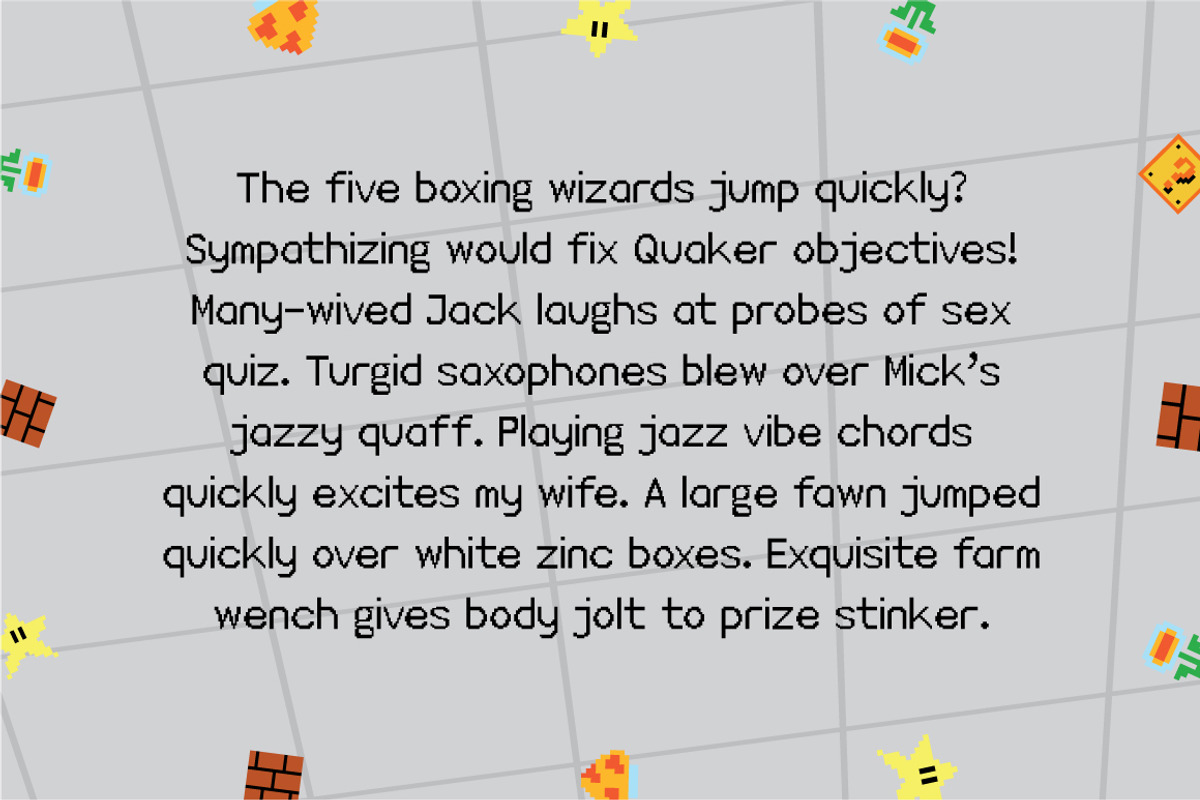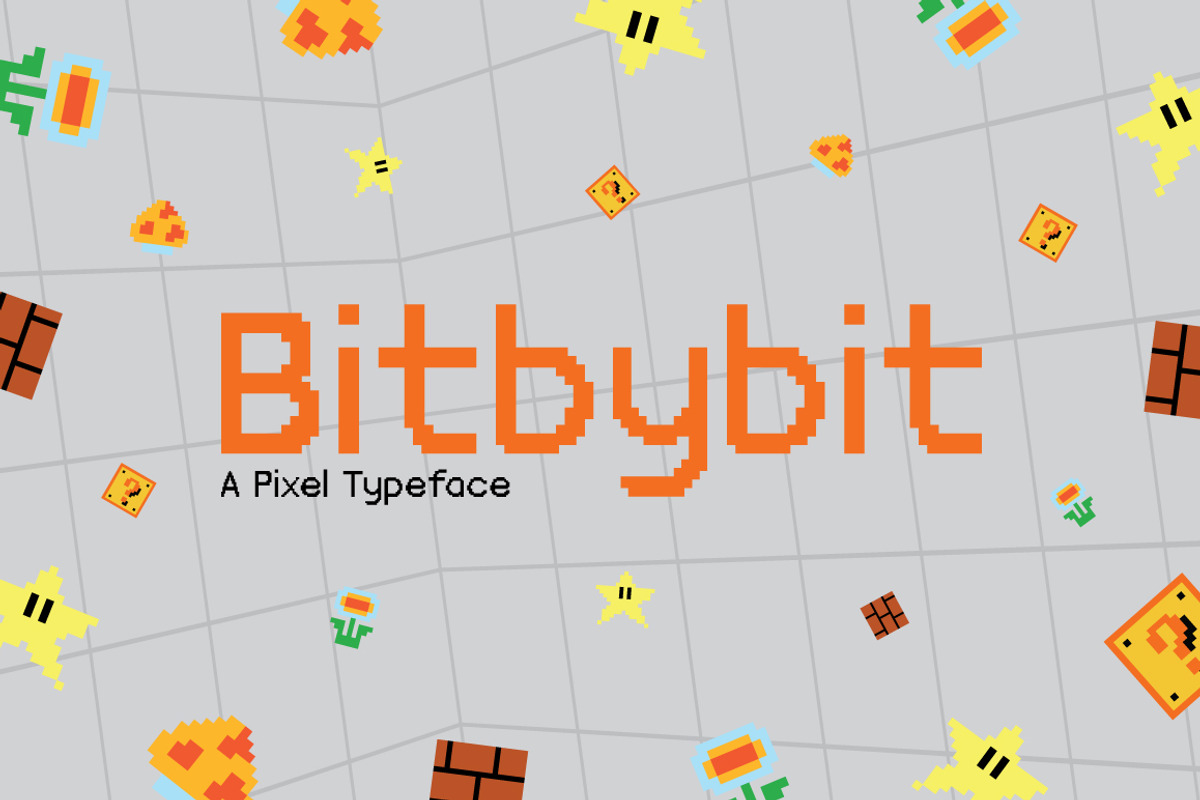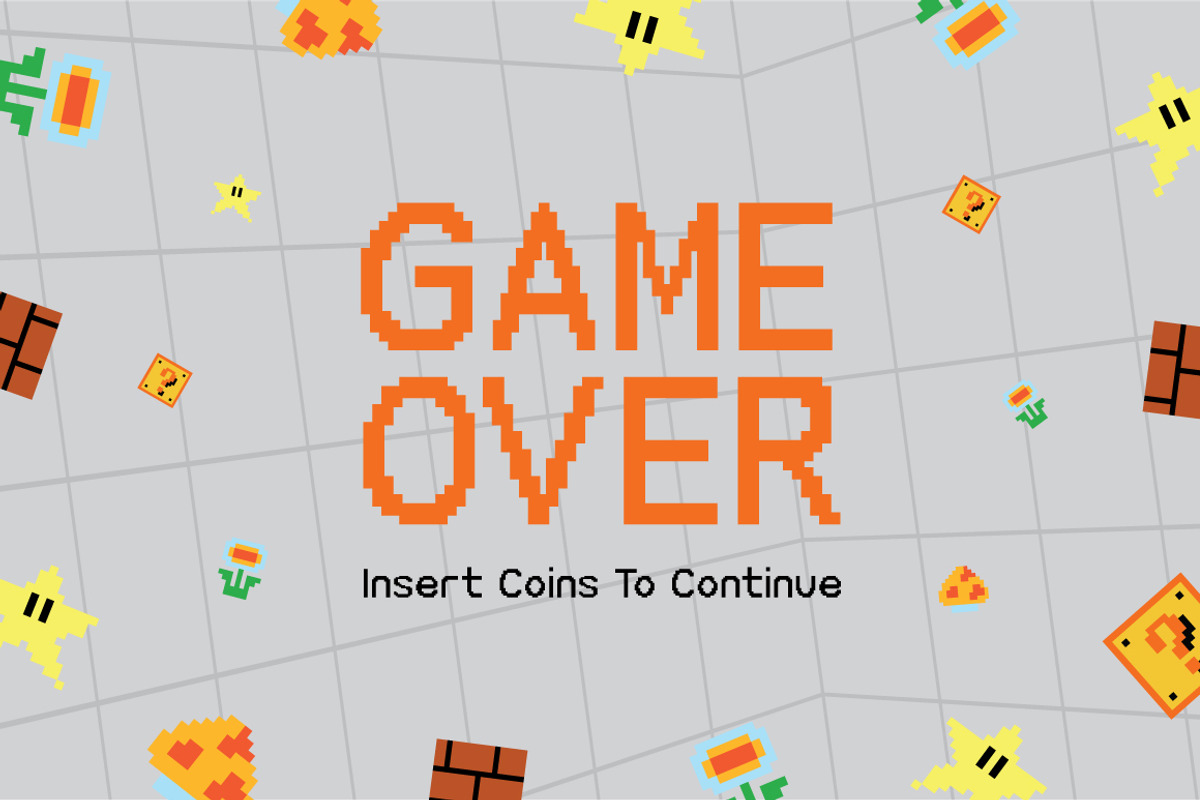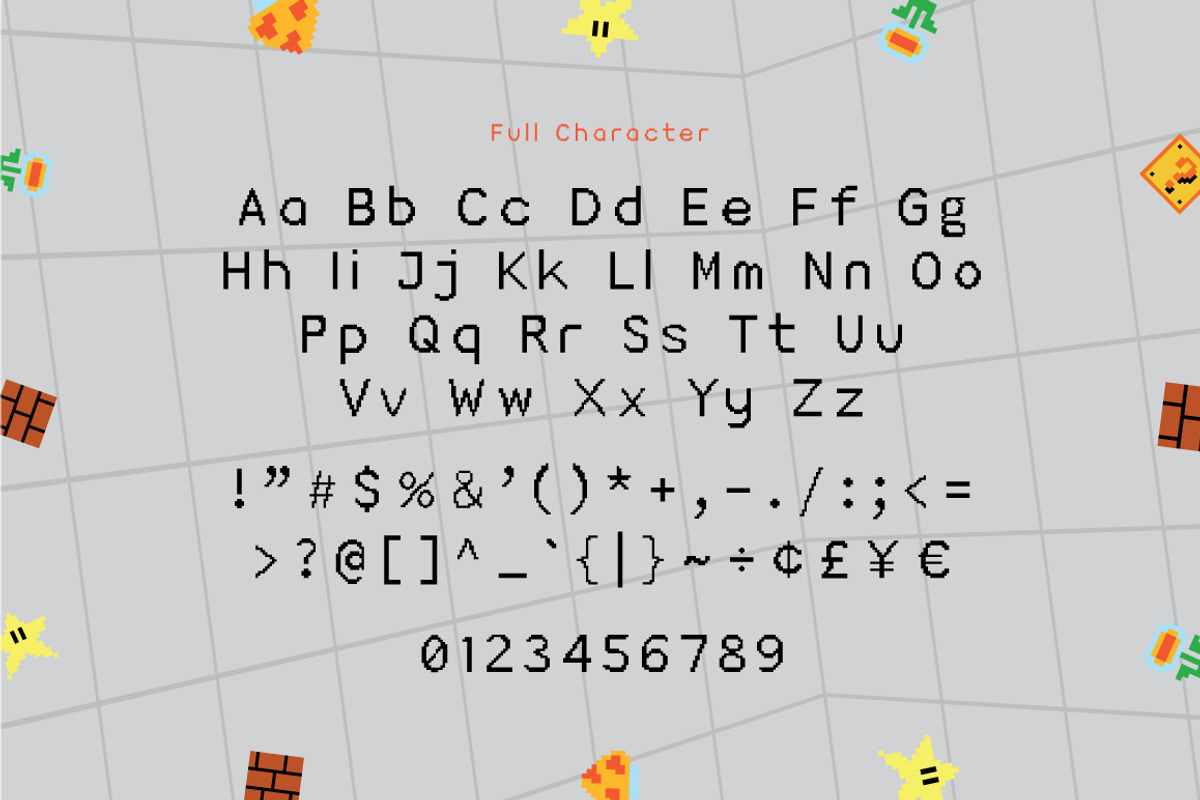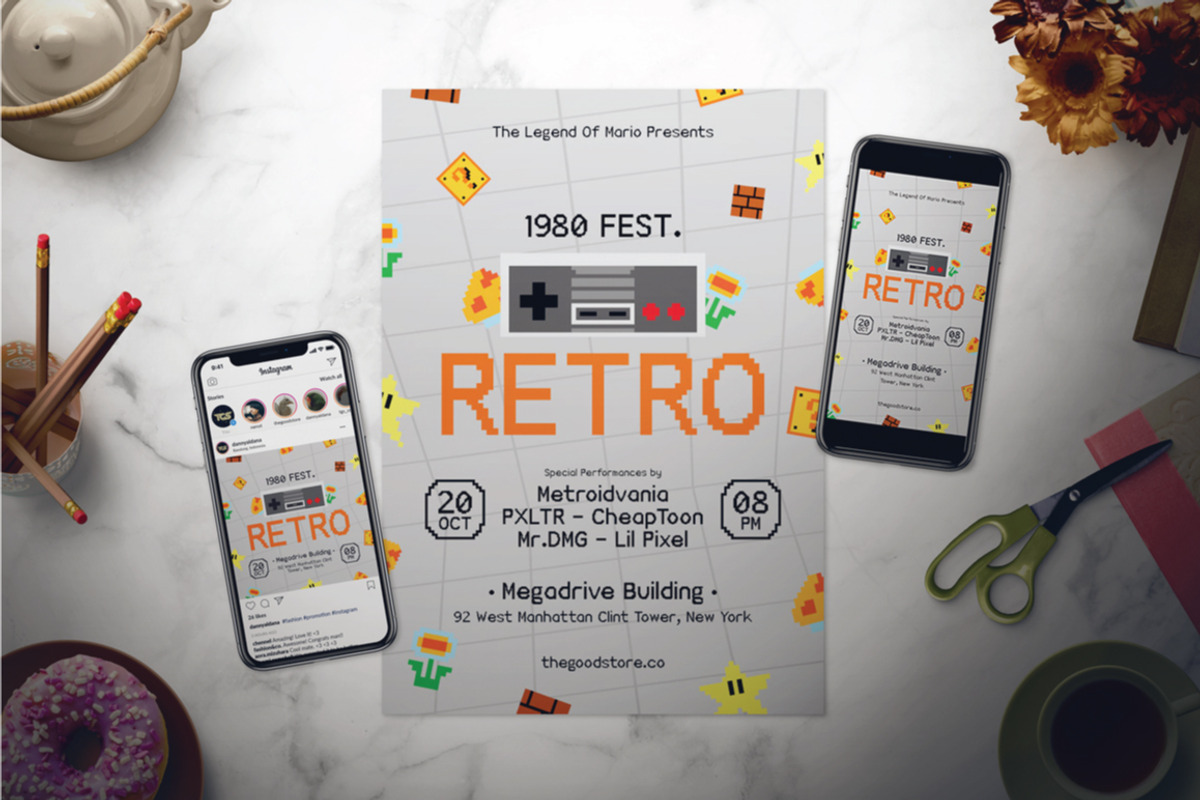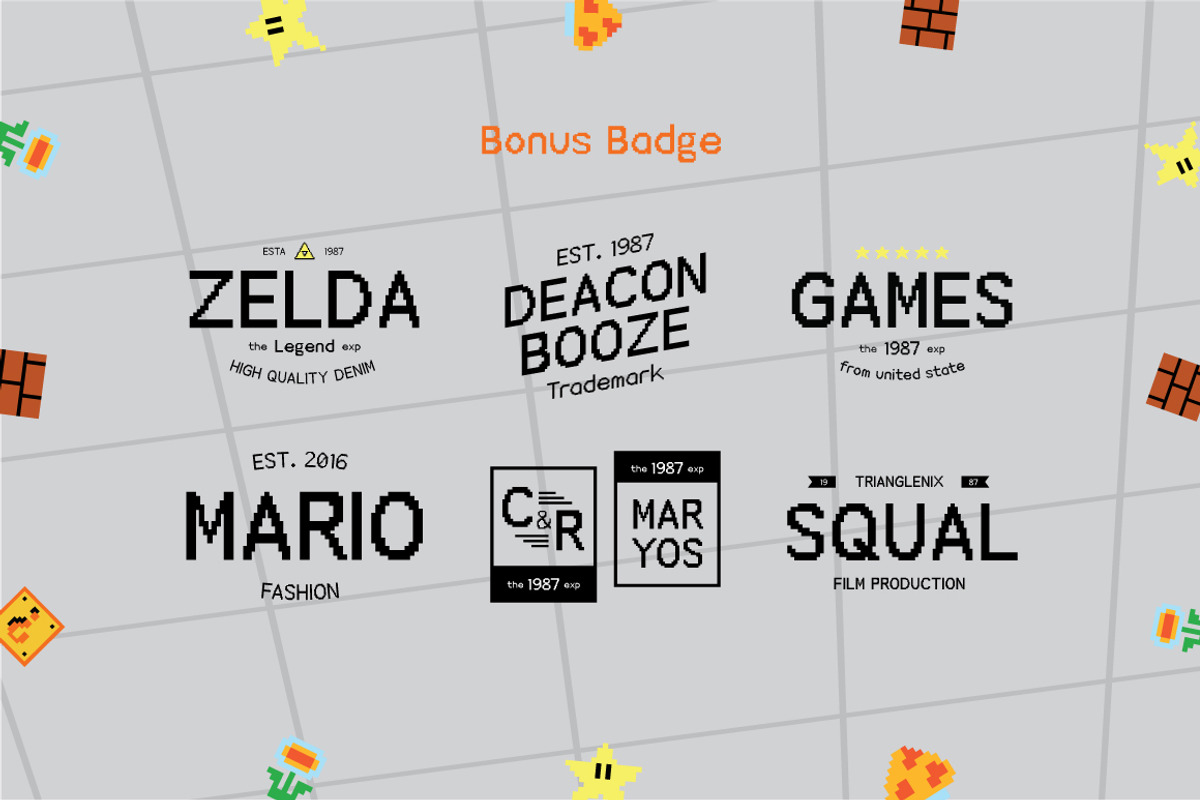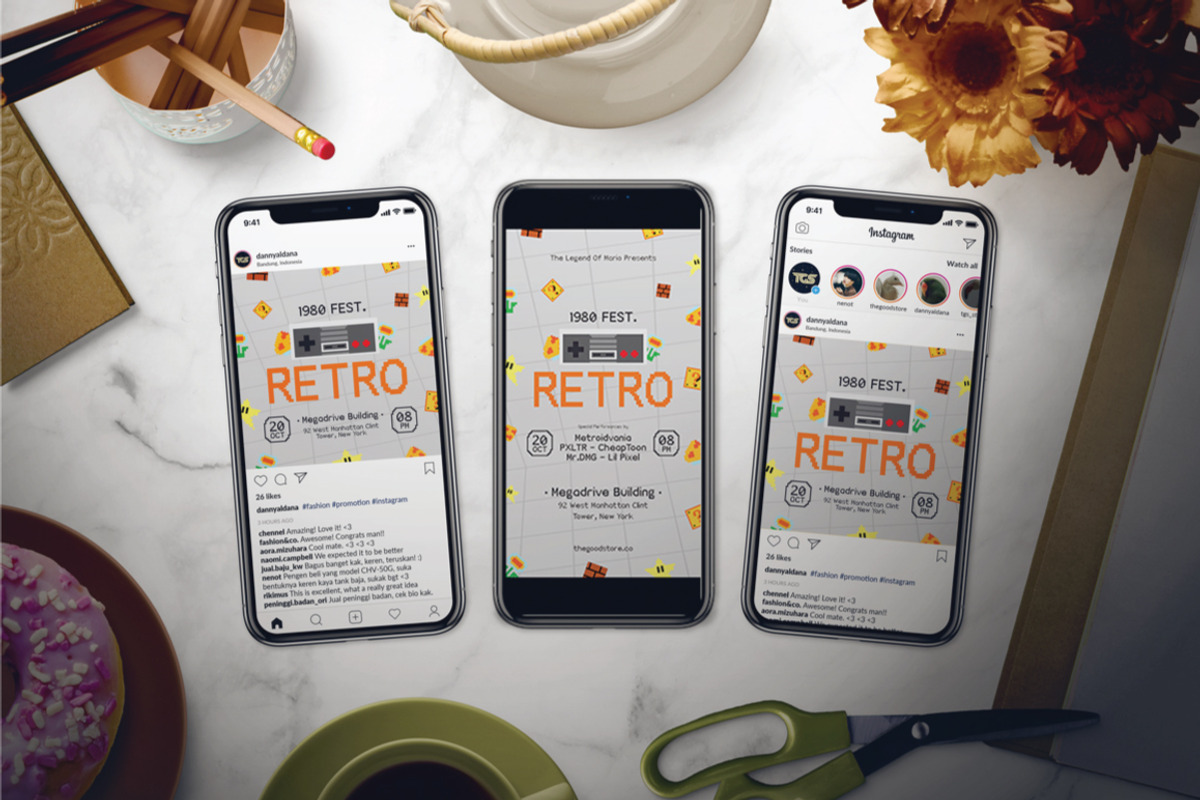
Bitbybit Font
Introducing Bitbybit typeface.
A retro looks pixel sans serif font that comes in Regular and Bold styles.
Inspired from a retro gaming culture, the J-RPG retro games, the side-scrolling metroidvania and all the retro console that live in 8bit to 32bit pixel style.
Bitbybit is a Sans Serif Pixel Typeface